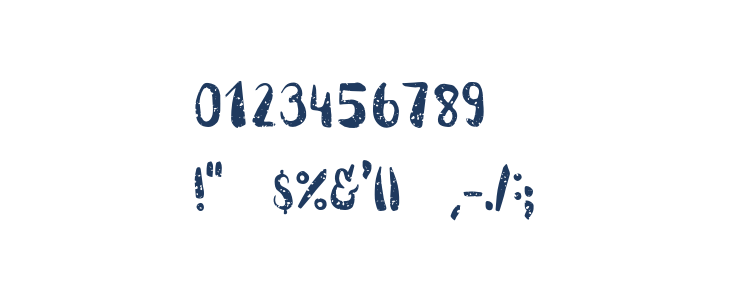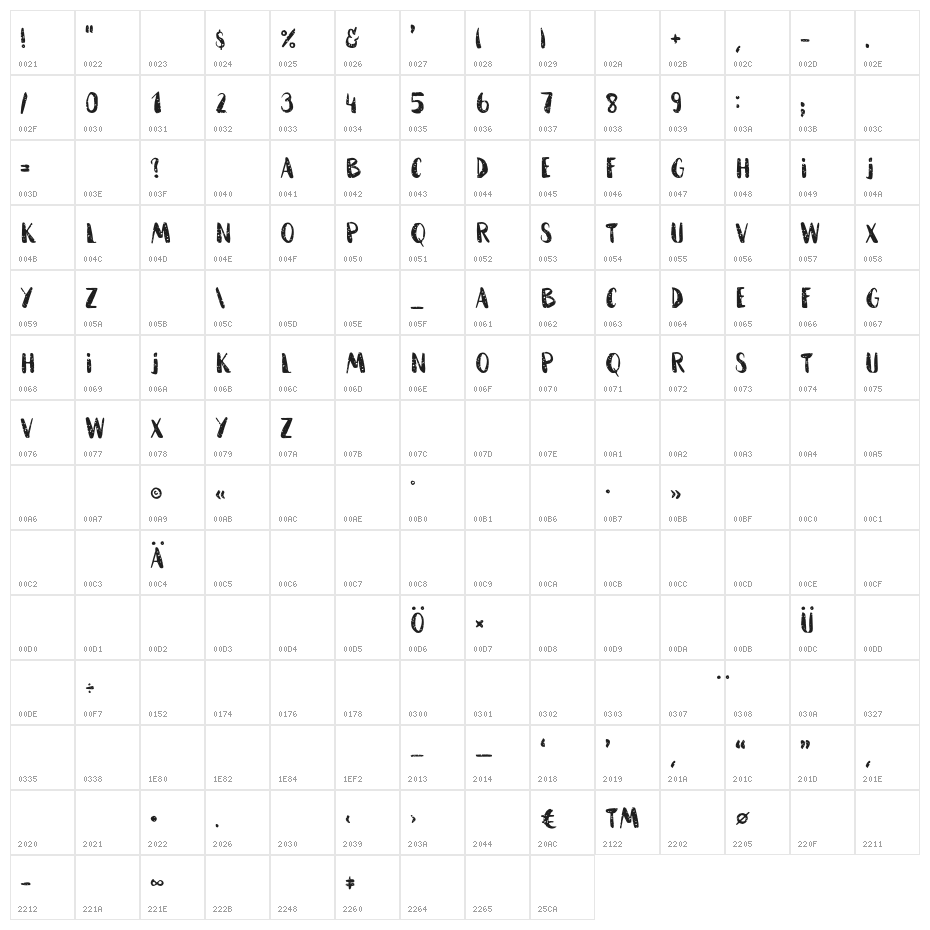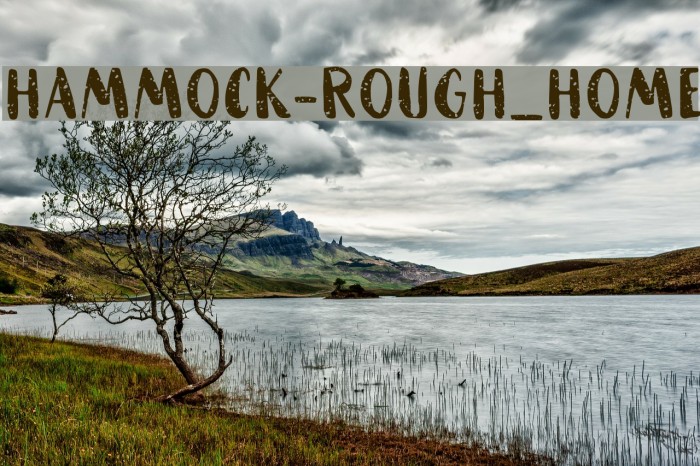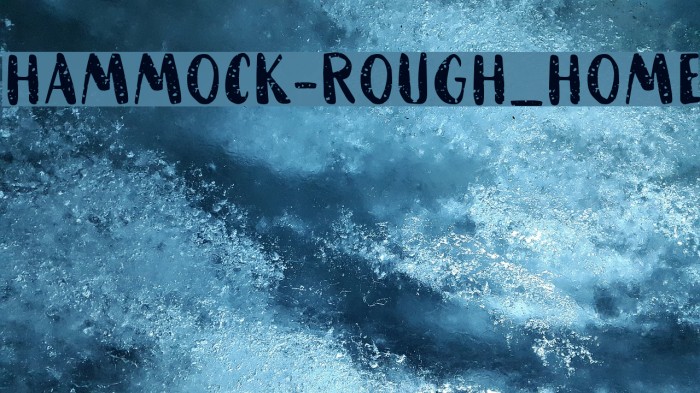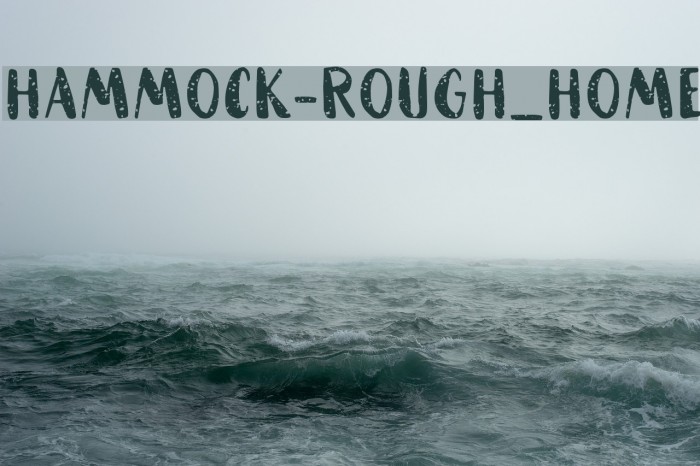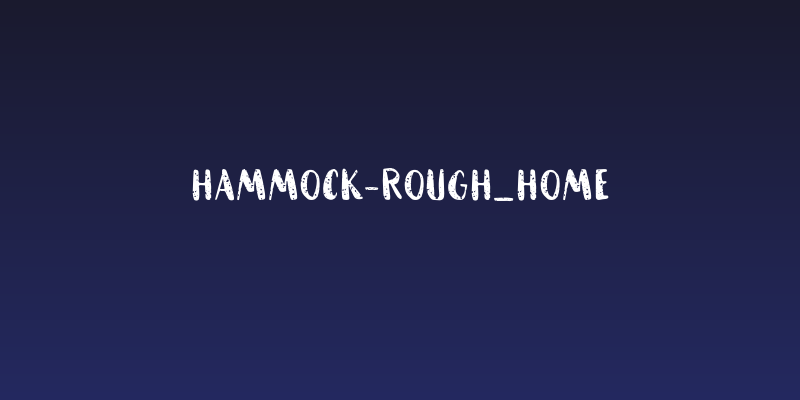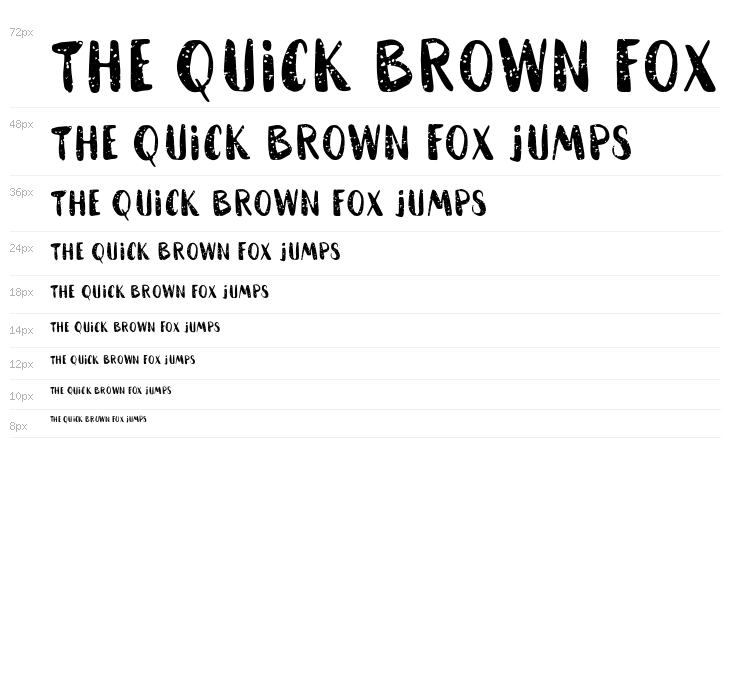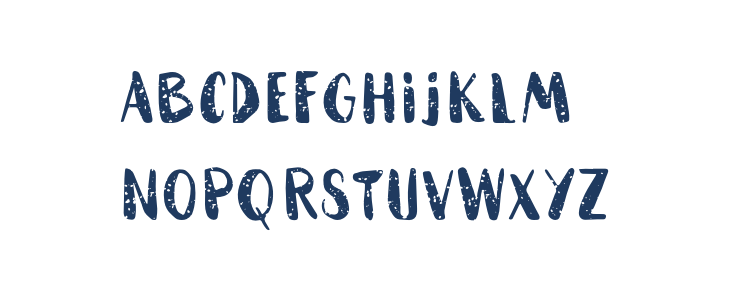
HAMMOCK-Rough_Home Font
HAMMOCK-Rough_Home Description
This font features a rough, textured appearance that gives it a distressed and vintage feel. The characters are bold and slightly irregular, adding a handcrafted and organic touch. The uppercase and lowercase letters maintain a consistent style, with a playful and dynamic energy. The numbers and special characters follow the same aesthetic, making the font versatile for various creative applications. Its unique style is perfect for projects that require a rustic or grunge look, such as posters, album covers, or branding materials that aim to convey a sense of authenticity and individuality.
| Overall Style | Vintage |
| Proposed Projects | Ideal for posters, album covers, branding, and any project needing a rustic or grunge aesthetic. |